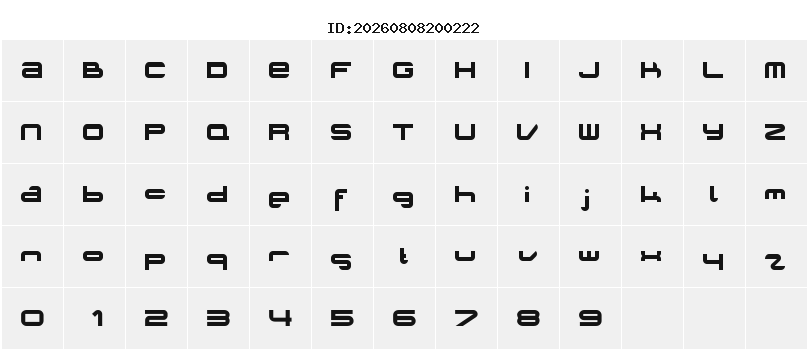
• Font Name: Planet Opti
Planet Opti.ttf is a modern, elegant sans-serif font designed for ultimate readability and visual harmony. Perfect for branding, headlines, web design, and print materials.